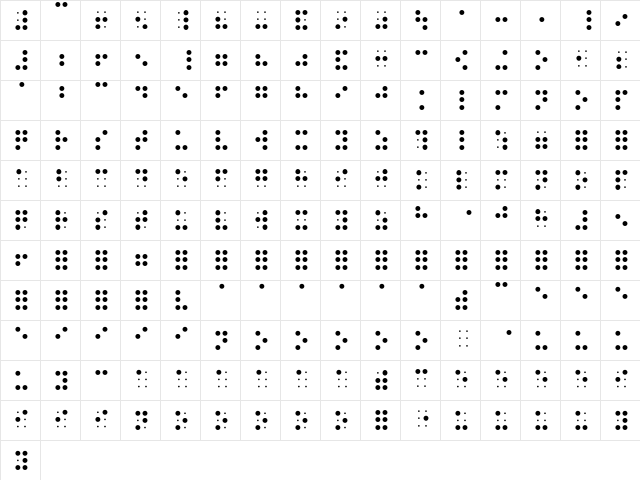
BRAILLE REGULAR
Design Context for BRAILLE Typeface
BRAILLE is a composed and adaptable typeface that performs quietly and consistently across a wide range of design contexts.